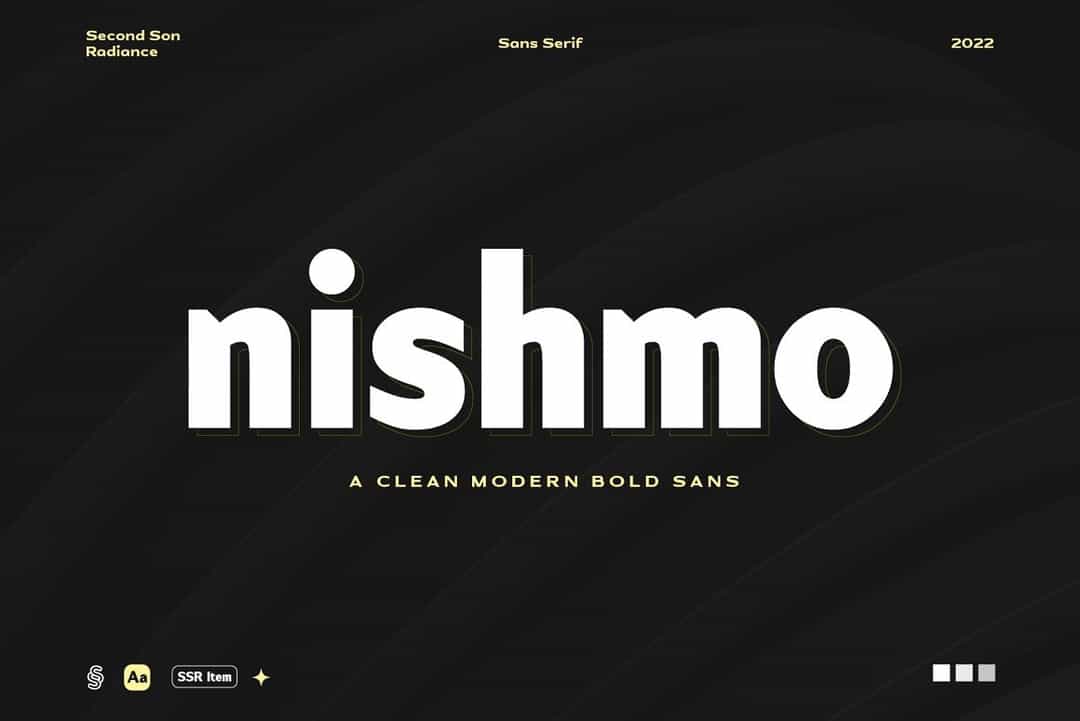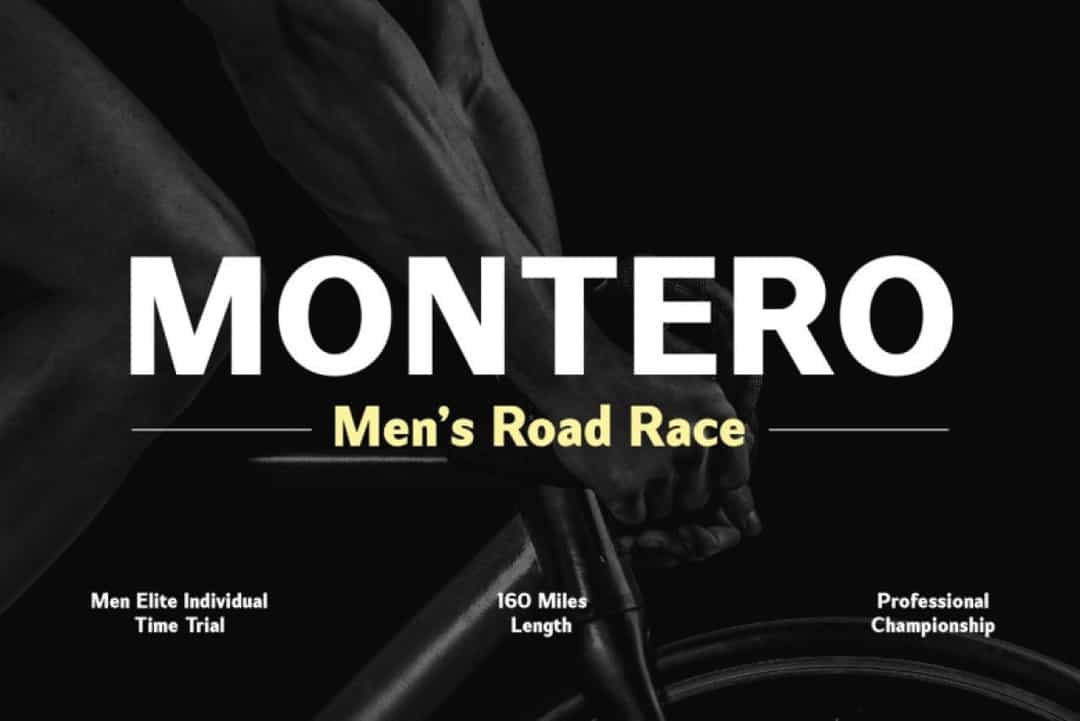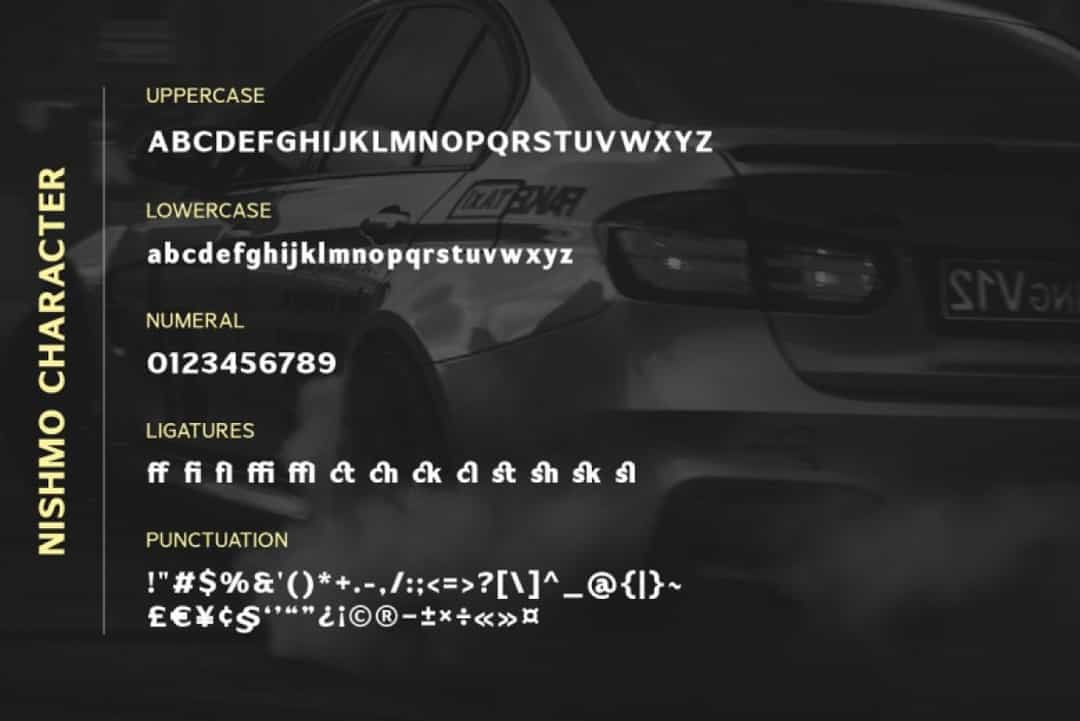
Nishmois is an elegant modern sans serif headline font inspired by classic geometric typefaces with their minimal design aesthetics. Perfect for logo branding projects as well as creative stationery design projects and editorial sports designs; Nishmo makes an ideal choice.